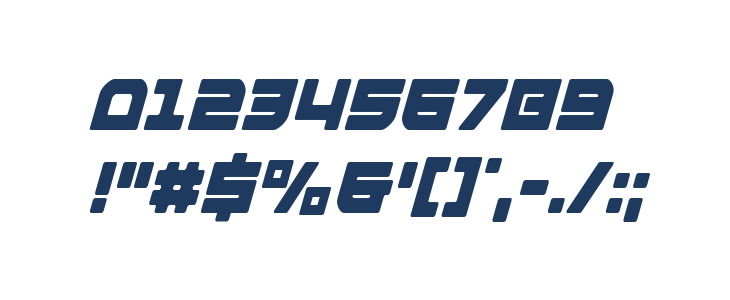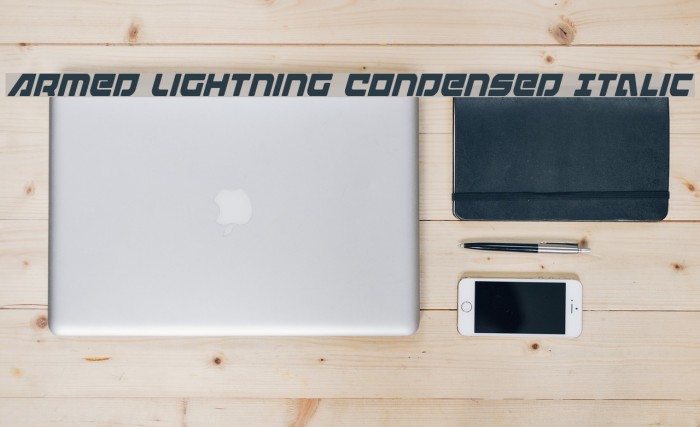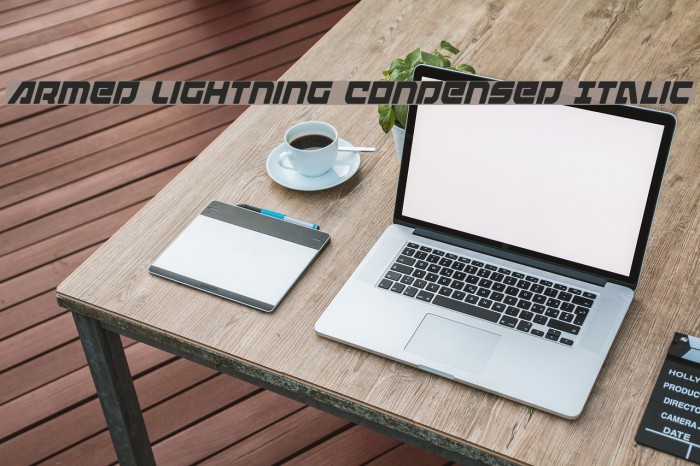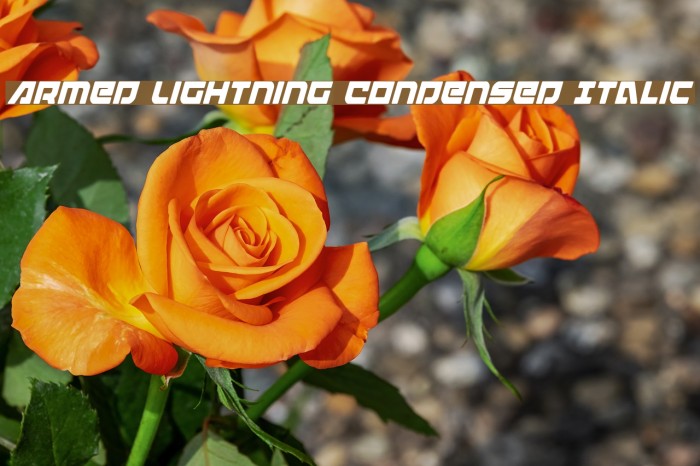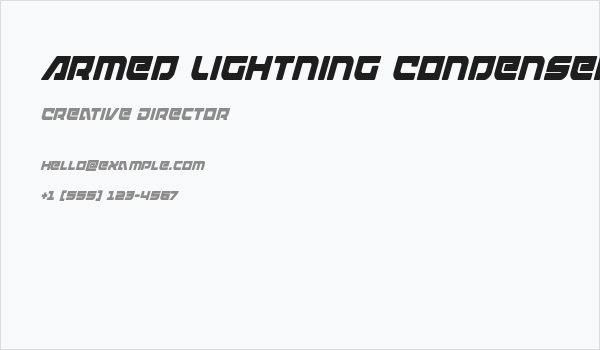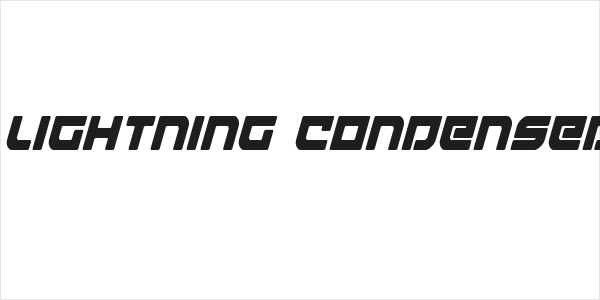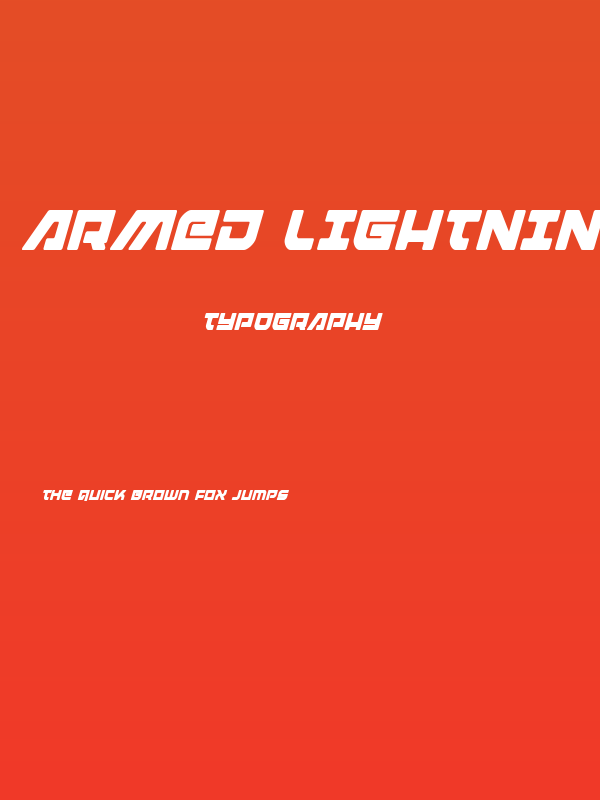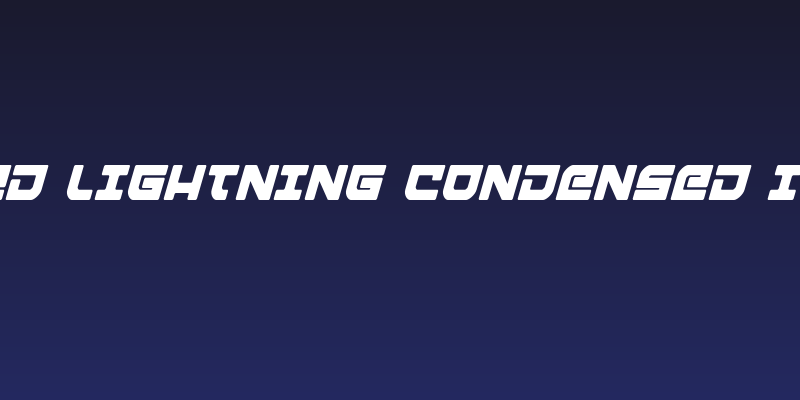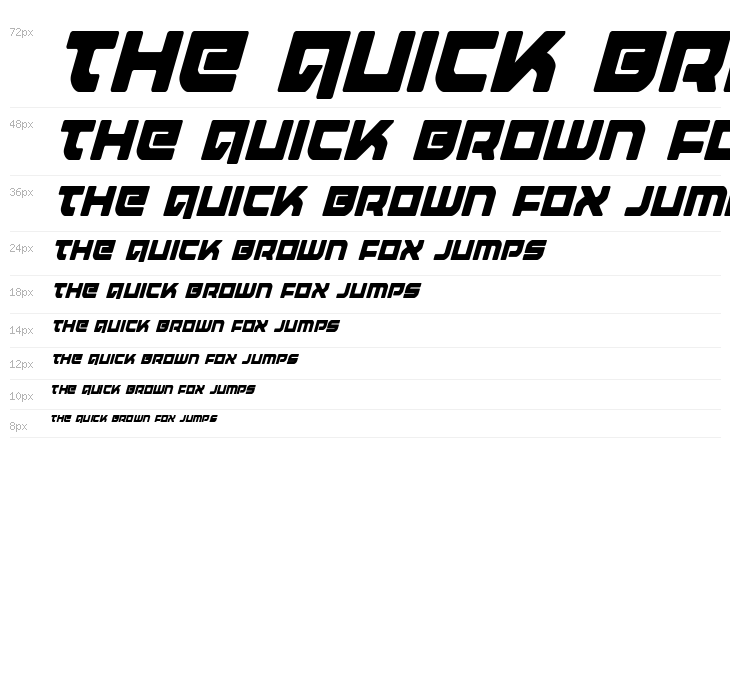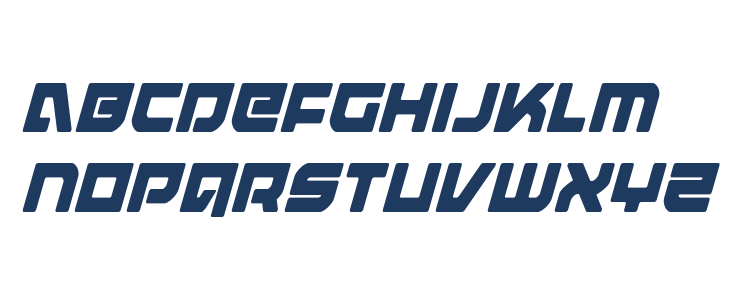
Armed Lightning Condensed Italic Font
Armed Lightning Condensed Italic Description
This font features a bold and dynamic design with a futuristic flair. The characters are sharply angled, giving a sense of speed and movement, reminiscent of lightning. The condensed form allows for efficient use of space, making it ideal for impactful headlines. The italic style adds an additional layer of dynamism, enhancing the sense of motion. The strokes are consistent in thickness, providing a uniform appearance across all characters. The font includes a full set of uppercase and lowercase letters, numbers, and a variety of special characters, ensuring versatility in design applications.
Proposed ProjectsIdeal for sports branding, automotive advertisements, video game titles, and dynamic poster designs.